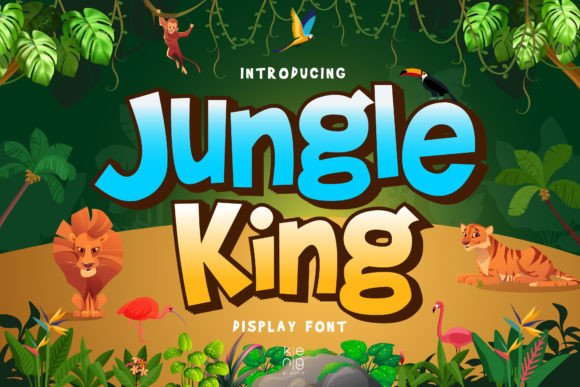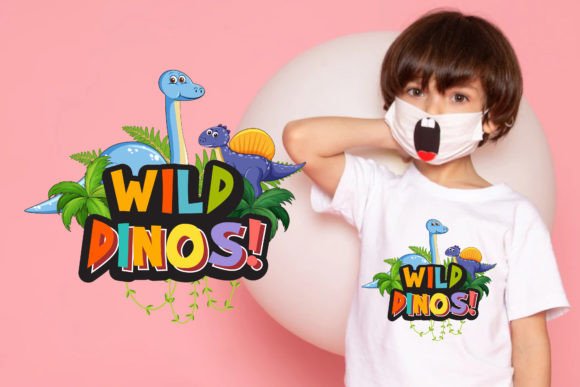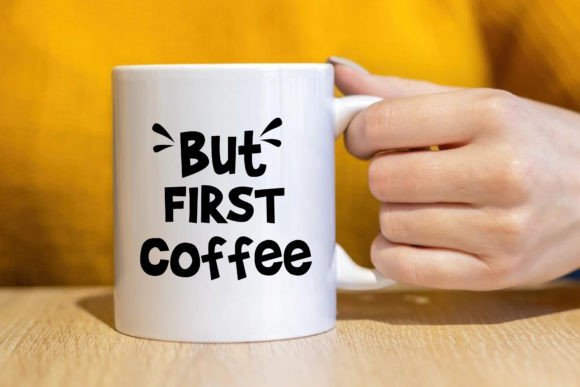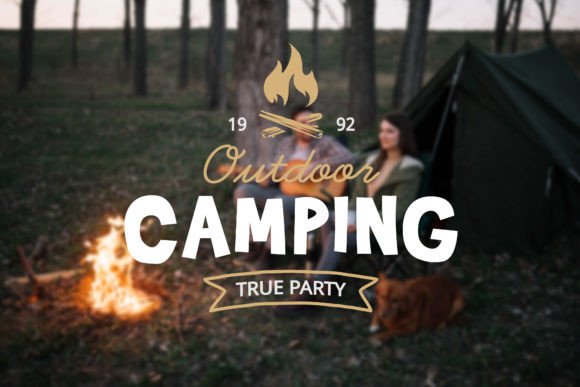
Jungle King Font
About the Jungle King Font
Let us introduce you to Jungle King Font, where timeless design meets modern craftsmanship. Jungle King is a cool cartoon-style display font with a great punch. Everything written in this font will be instantly recognizable and will attract attention. It will work great for comic book style, online games, adventure event posters, shirts, poster mugs, movie titles, eye-catching social media posts, or anything that requires youthfulness and courage.
Jungle King’s bold, playful energy makes it ideal for headlines, logos, and short, impactful text in branding materials or posters. It’s perfect for projects targeting a younger demographic or conveying a sense of adventure. Avoid using it for body copy or UI elements; its quirky style isn’t legible enough for extended reading.
Pairing Jungle King effectively requires a contrasting typeface. A clean sans-serif like Open Sans or a neutral serif such as Lora would provide excellent balance, grounding the playful energy of Jungle King and improving overall readability. For a more adventurous feel, consider pairing it with a geometric sans-serif.
This font’s personality is definitively bold and playful, yet still retains a sense of approachability. Brands focused on action, entertainment, or children’s products would find this font particularly effective.